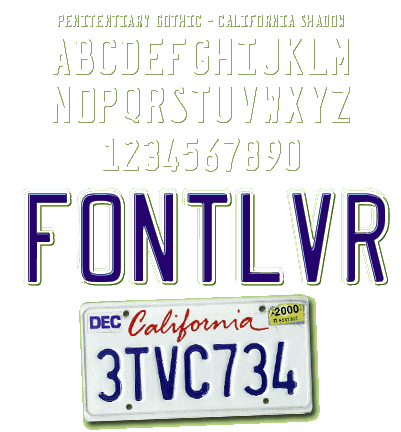
This font is one of four which work together to more accurately replicate the lettering seen on California state license plates. This shadow weight should be used in a darker version of the background color.
The color sample shows how all four fonts look when used together. This font is available for sale at myfonts.com |